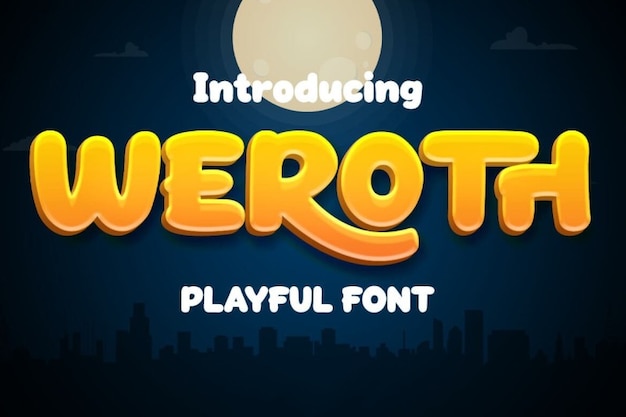
Weroth
Weroth Font
Playful and bold. The Weroth font is a fun display typeface specially designed to embody joy and authenticity in your creations. Its casual style is an excellent addition to any children's activity or school project. Download this font now and start creating!